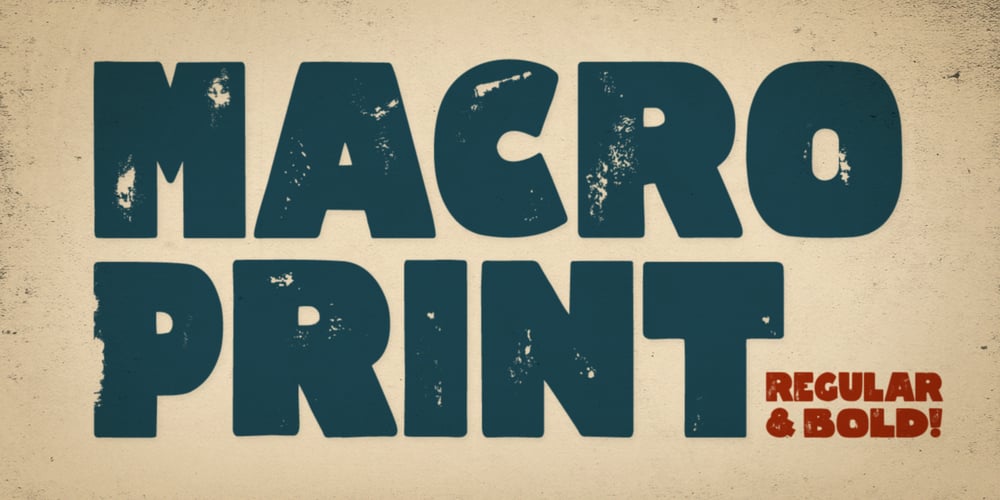
Macro Print Font Family was designed by Andreas Brunelius and published by Gustav & Brun. Macro Print contains 2 styles and family package options. Macro Print is a display font available in a regular and a bold version. But it does not stop there. To create a unique, hand-printed feeling there are two sets within each version, therefore using the same letter twice in a headline will make the font look original and authentic. Yep, it is hand-drawn.